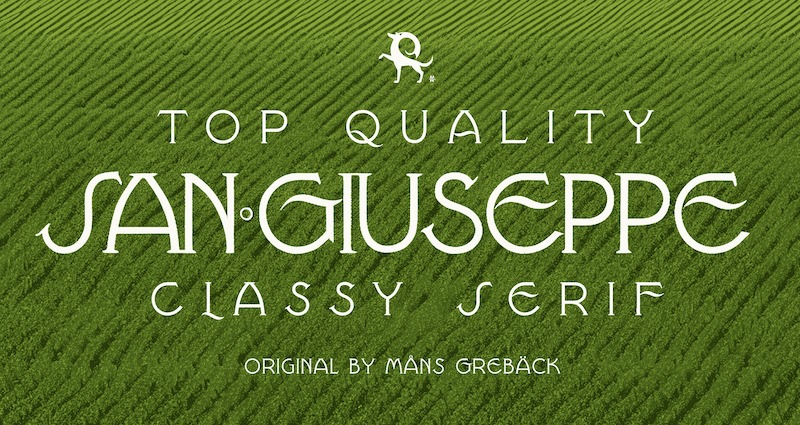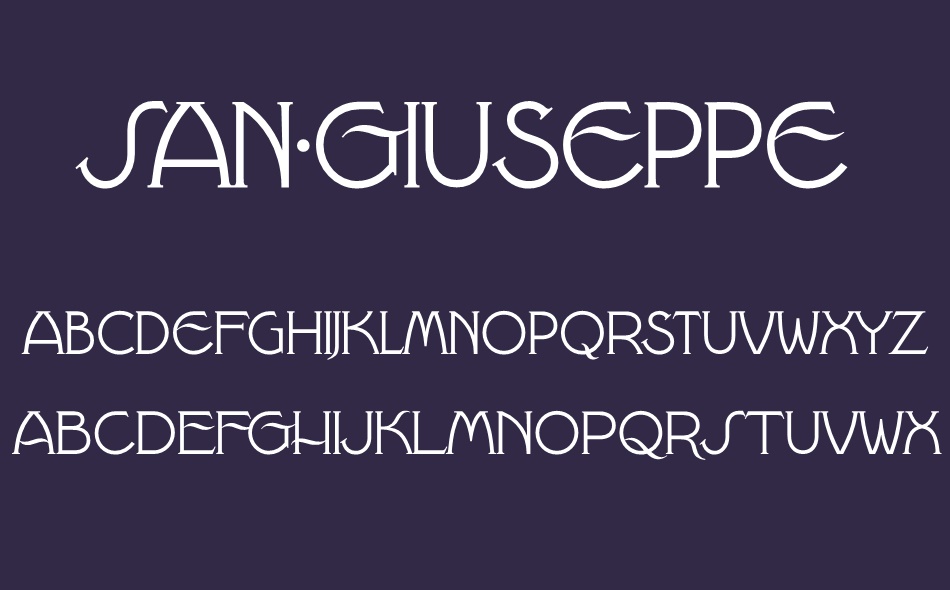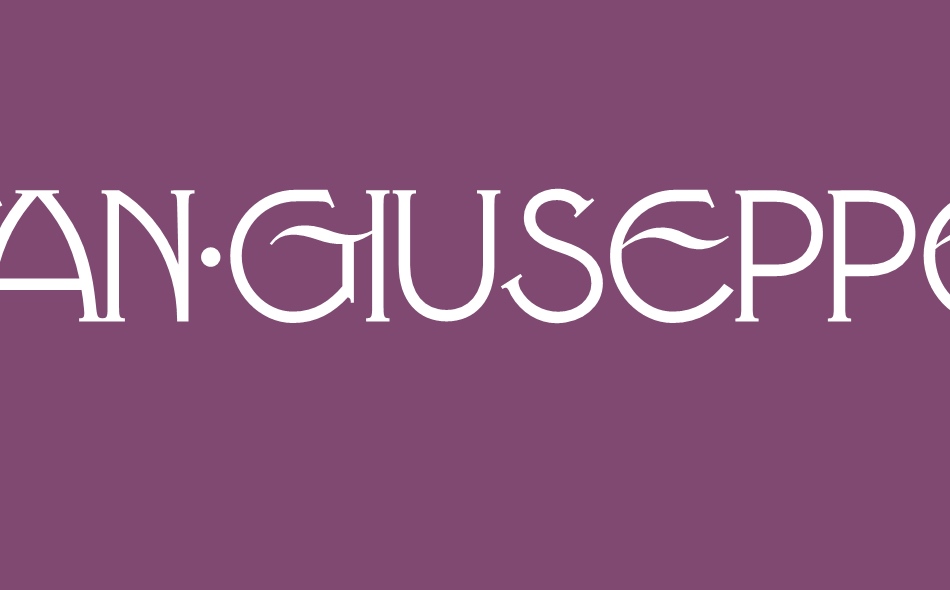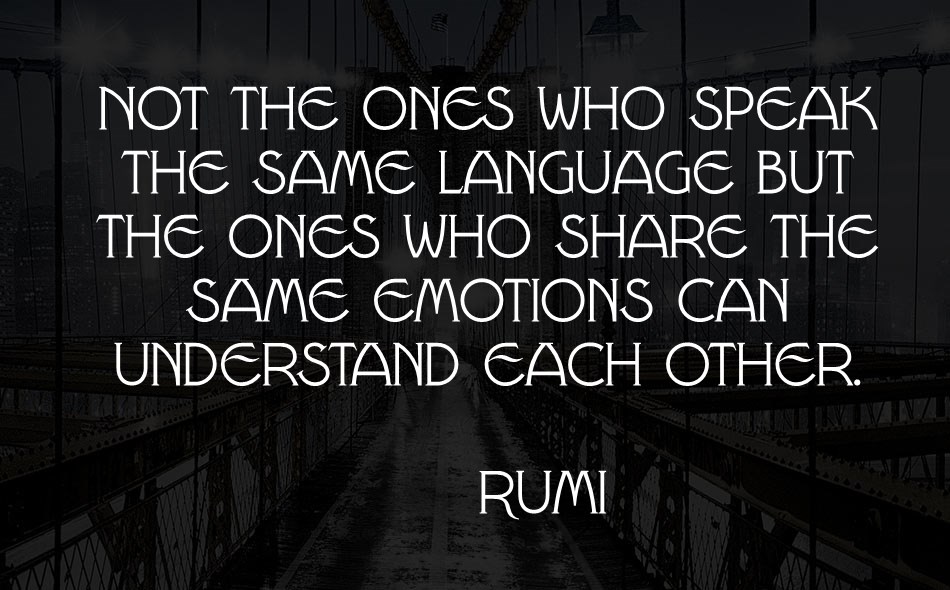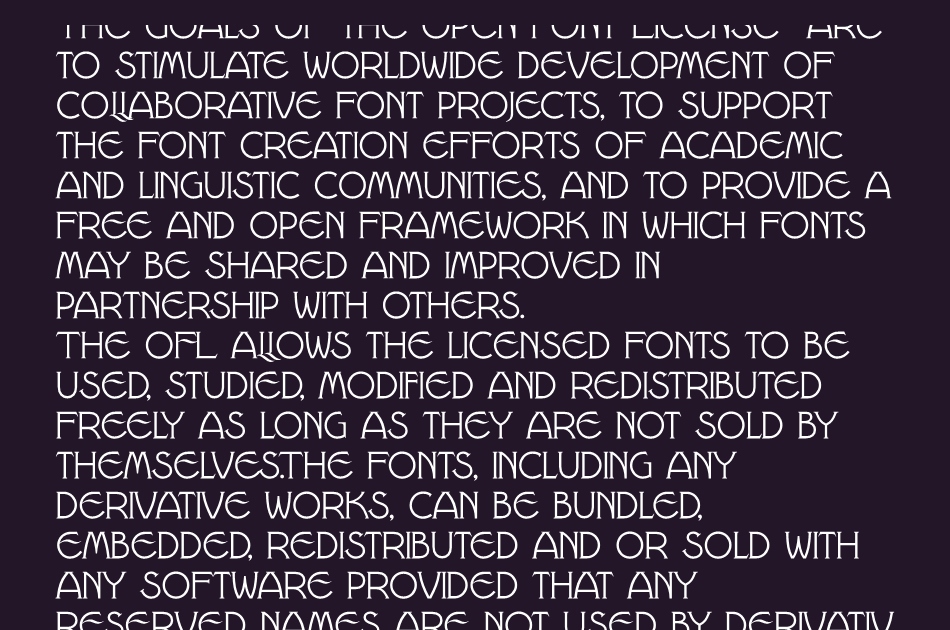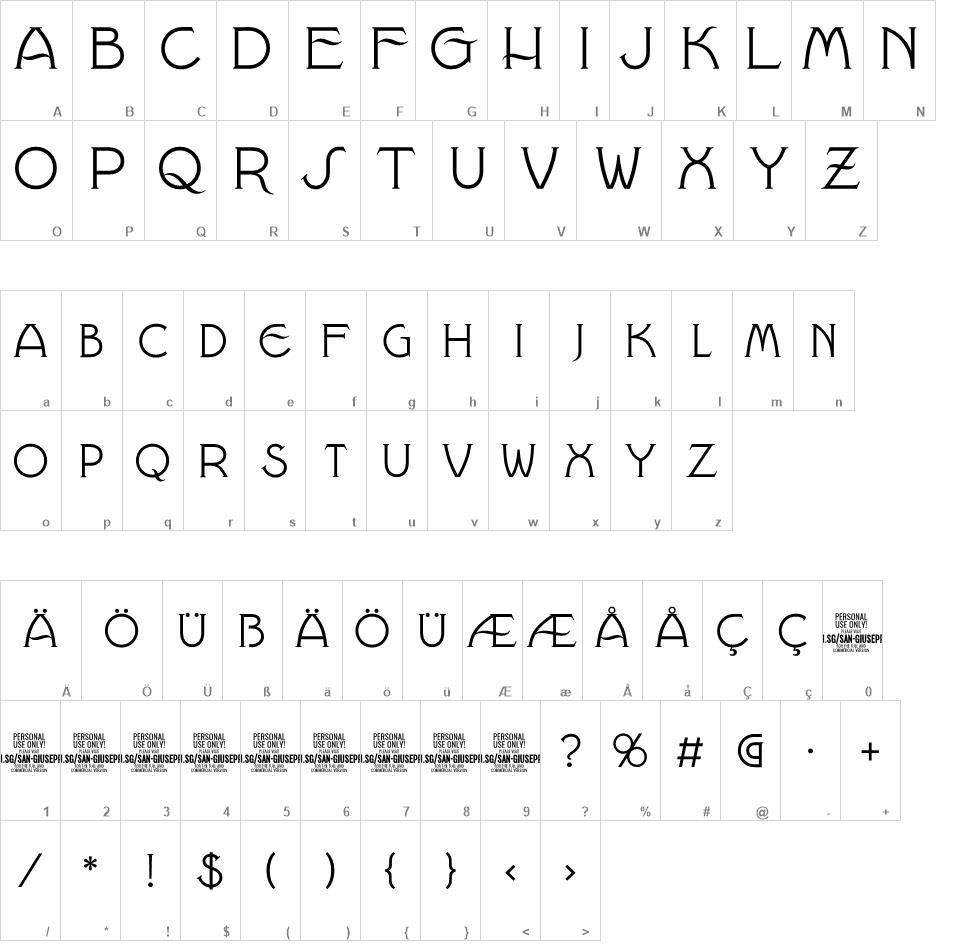
San Giuseppe font
Inspired by the romantic, ornate style of the Victorian era and the bold, captivating geometry of Art Deco, San Giuseppe is the perfect blend of neo-classic and vintage aesthetics. With its fine, intricate serifs and delicate, artistic letterforms, this font is a testament to the beauty and craftsmanship of yesteryear, created for a modern setting.
San Giuseppe is a serif font with finesse and unique charm.
Inspired by the romantic, ornate style of the Victorian era and the bold, captivating geometry of Art Deco, San Giuseppe is the perfect blend of neo-classic and vintage aesthetics. This serif font family is designed to infuse your work with an air of grace and refinement that is sure to leave a lasting impression.
Ideal for wine labels, luxury branding and high-end packaging, San Giuseppe is an all-capitals font, featuring a stunning array of alternate characters that allow you to create a truly bespoke typographical experience. With its fine, intricate serifs and delicate, artistic letterforms, this font is a testament to the beauty and craftsmanship of yesteryear, created for a modern setting.
The San Giuseppe font family consists of six high-quality styles:
In addition to the Regular font, it is provided in both Bold and Light, and each of the weights as Italic.
The font is built with advanced OpenType functionality and has a guaranteed top-notch quality, containing stylistic and contextual alternates, ligatures and more features; all to give you full control and customizability.
It has extensive lingual support, covering all Latin-based languages, from Northern Europe to South Africa, from America to South-East Asia.
It contains all characters and symbols you'll ever need, including all punctuation and numbers.